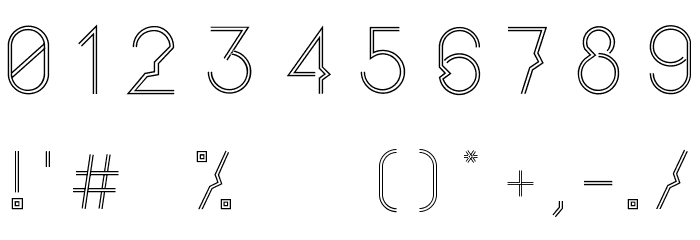
Mutawazi Font
This font features a unique, modern design with a geometric and minimalist aesthetic. The characters are outlined with a double-line effect, creating a sense of depth and dimension. The numbers and special characters maintain this style, offering a cohesive look across all glyphs. The font's clean lines and open spaces make it highly legible while still being visually interesting. The use of sharp angles and curves gives it a futuristic feel, making it suitable for contemporary design projects. Its distinctive style can add a touch of sophistication and modernity to any visual presentation.
A modern, geometric font with a double-line effect and futuristic appeal.
- Proposed Projects: Ideal for branding, digital interfaces, posters, and modern editorial design.